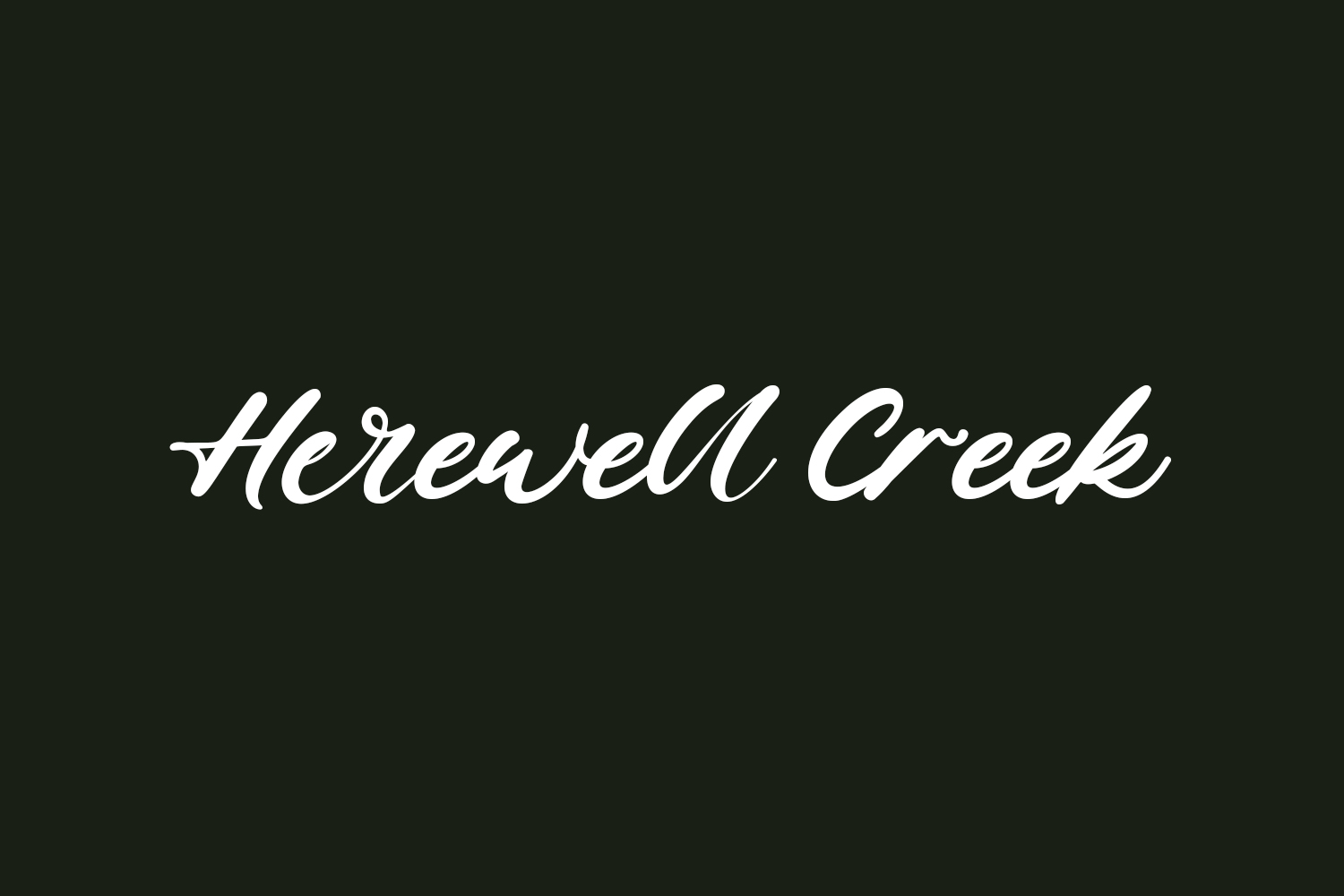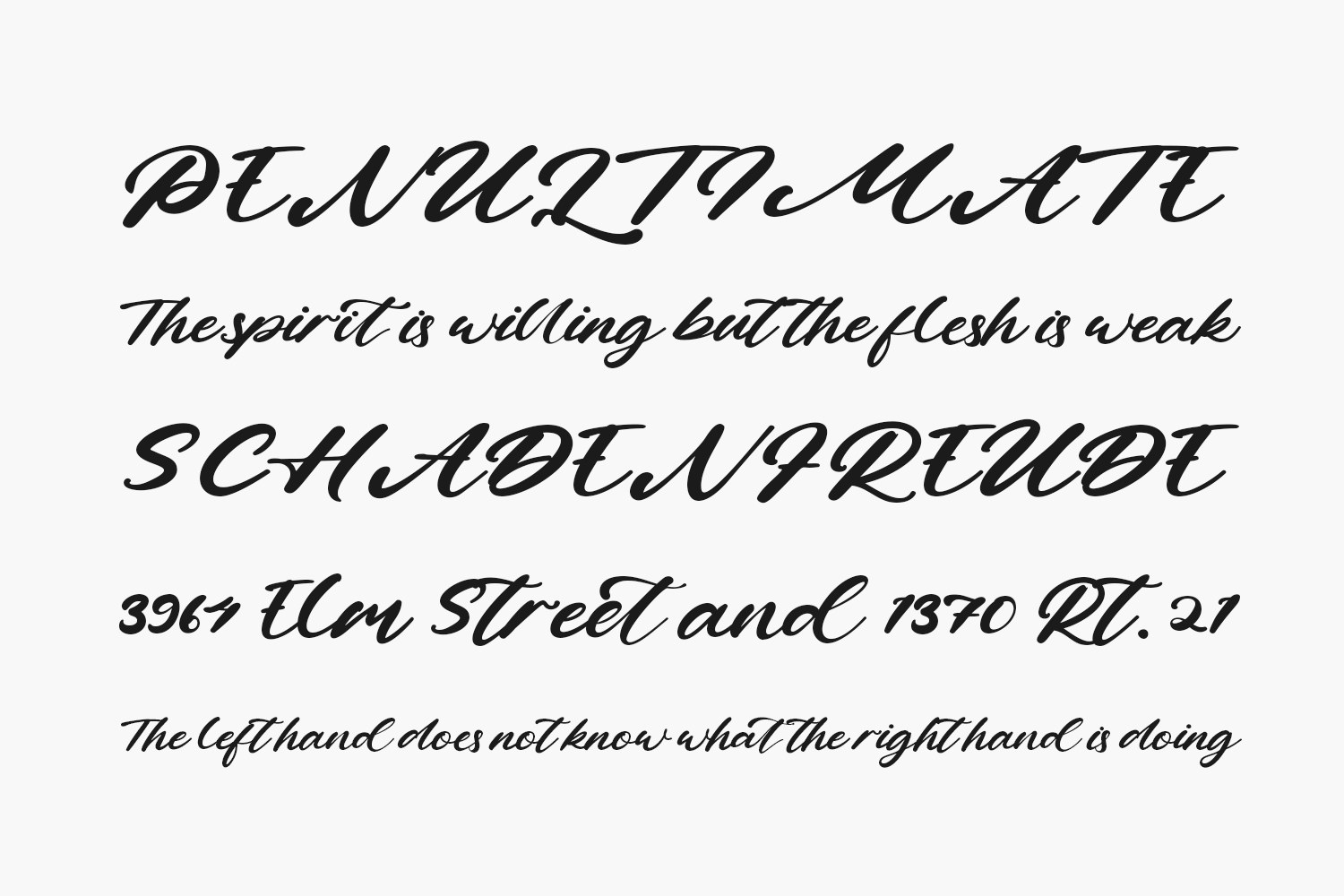
Herewell Creek Free Font is a modern and playful handwritten script font. It’s great for crafters and designers. Herewell Creek Free Font was designed by Kong Font and is free for personal or commercial use.